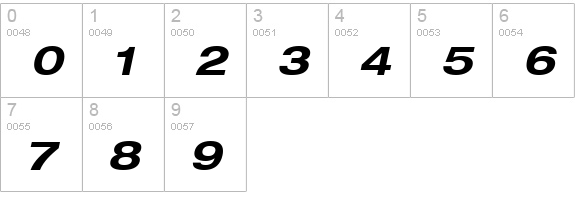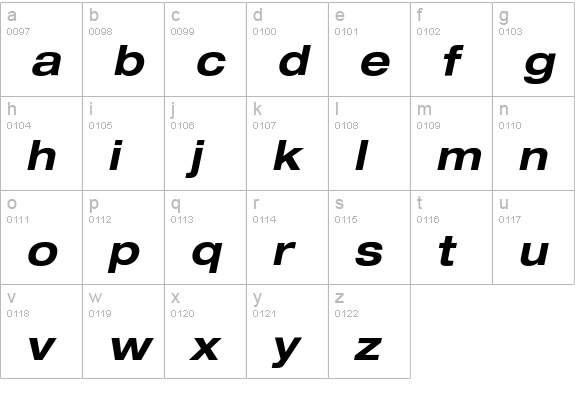
Context Reprise Expanded SSi Bold Expanded Italic Font Details
Context Reprise Expanded SSi Bold Expanded Italic is a strong, high-contrast, extended-width, italic variant in the Context typeface family \xE2\x80\x94 well suited to headlines, attention-grabbing titles, and strong calls-to-action.
Context Reprise Expanded SSi Bold Expanded Italic font is a bold and dynamic typeface that commands attention with its strong presence and modern aesthetic. Its expanded design gives it a unique and eye-catching look, making it perfect for headlines, titles, and other display purposes. The italicized style adds a touch of elegance and sophistication to any design project. This font is not only visually striking but also highly versatile, suitable for a wide range of design applications. Whether you're creating posters, advertisements, or branding materials, Context Reprise Expanded SSi Bold Expanded Italic font will help your message stand out and make a lasting impression. Best of all, this font is available for free download at FontsMarket.com. Now you can enhance your designs with this impactful typeface without any cost, making it a valuable addition to your font library. Don't miss out on the opportunity to elevate your projects with the bold and stylish Context Reprise Expanded SSi Bold Expanded Italic font.